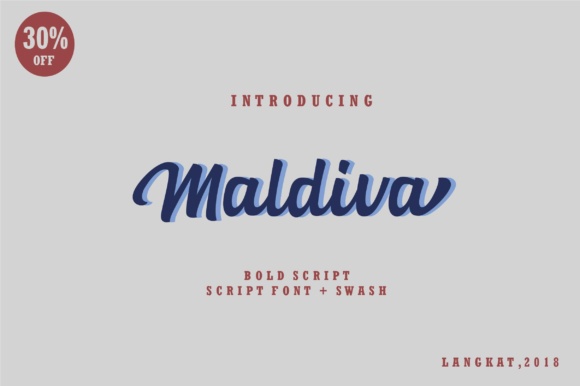
Maldiva Script Font
About Maldiva Script Font
The Maldiva is a striking script font. It has bold letters which will make your design stand out and give it a personal touch.